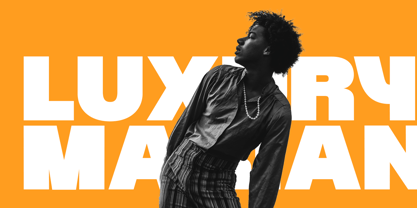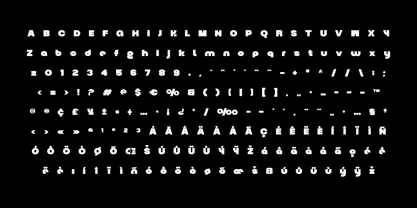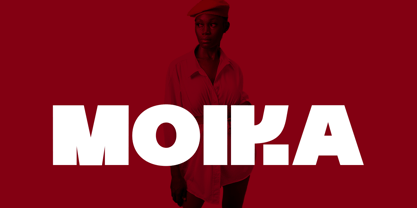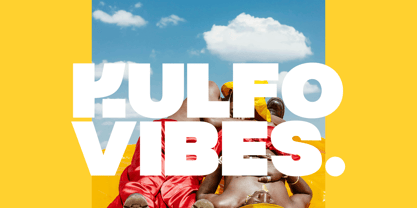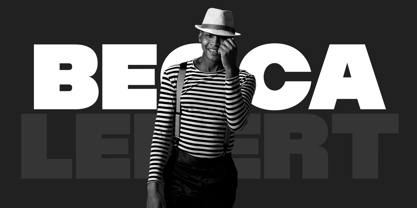
Moika Display
The Moika Display Font Family was designed by Evin Tony and published by FoxType. Moika Display contains 1 styles. More about this family
Moika Display is a meticulously crafted font, designed to make a bold statement in your creative projects. Ideal for posters, magazine covers, headlines, Logo, Branding and more, this font brings a modern and dynamic touch to any design.
Key Features:
• Neat and Precise: Each character is carefully designed to ensure clarity and visual appeal.
• Versatile Usage: Perfect for **creating eye-catching posters, striking magazine covers, and attention-grabbing Headlines.
• Transform your branding designs with the distinctive style of Moika Display Typeface, a font that combines elegance and impact seamlessly.